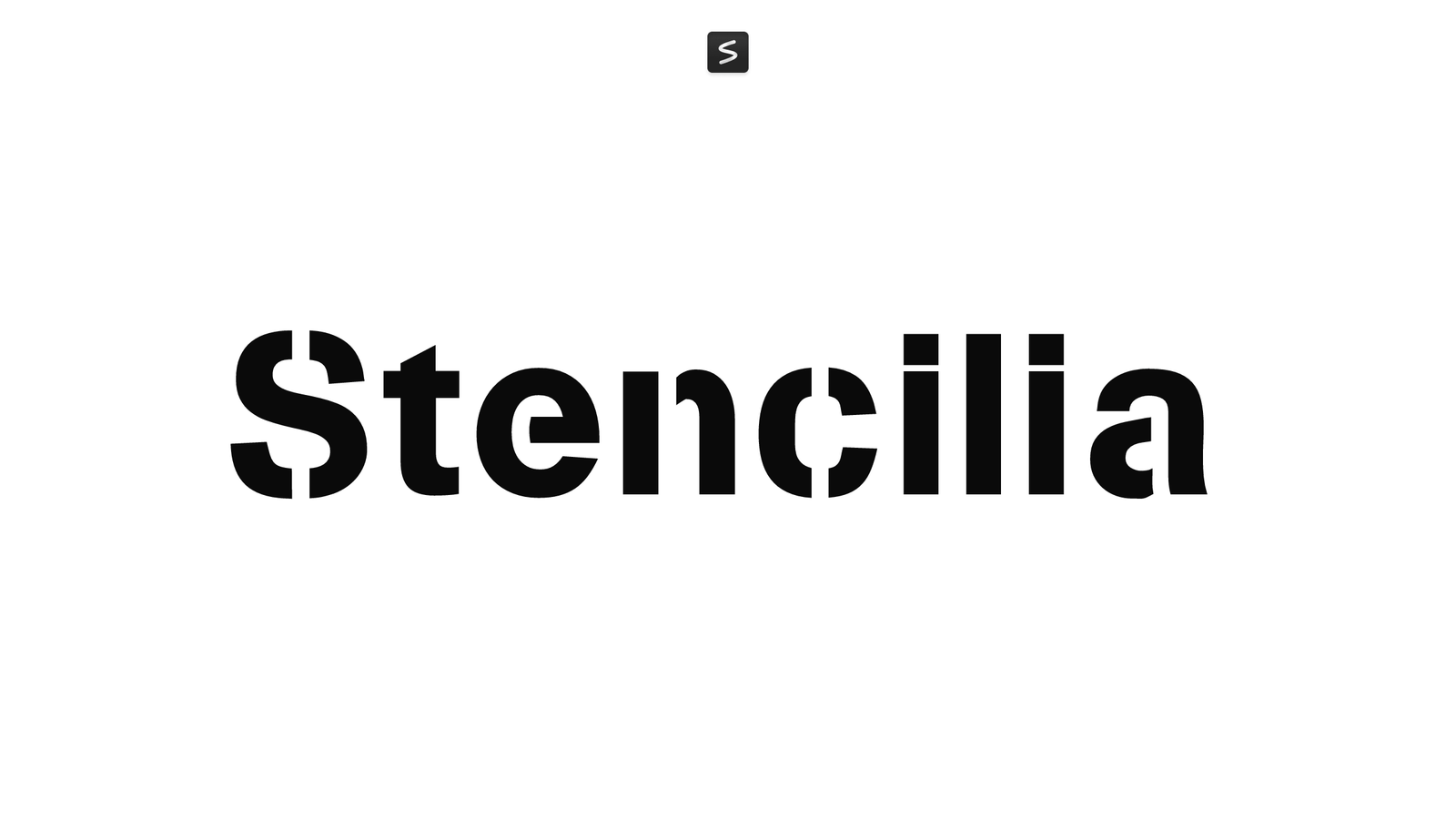
Stencilia
Stencilia is a stencil-style display font designed by Manfred Klein. Its blocky, geometric letterforms are cut out cleanly, mimicking the look of letters punched through a physical stencil template. The font has a straightforward, no-frills character that works well for bold graphic statements.
The uniform stroke width and open counters give Stencilia a graphic, almost architectural quality. It reads clearly even at large sizes and maintains its distinctive stencil appearance across all letters. The style leans practical rather than decorative, making it useful for projects that need direct visual impact without flourish.
Stencilia works well for posters, signage, logos, and packaging where a strong, utilitarian look fits the brief. It’s also a natural choice for graffiti-inspired designs or any project where that cut-stencil aesthetic matters. The font delivers straightforward stencil character with clean execution.